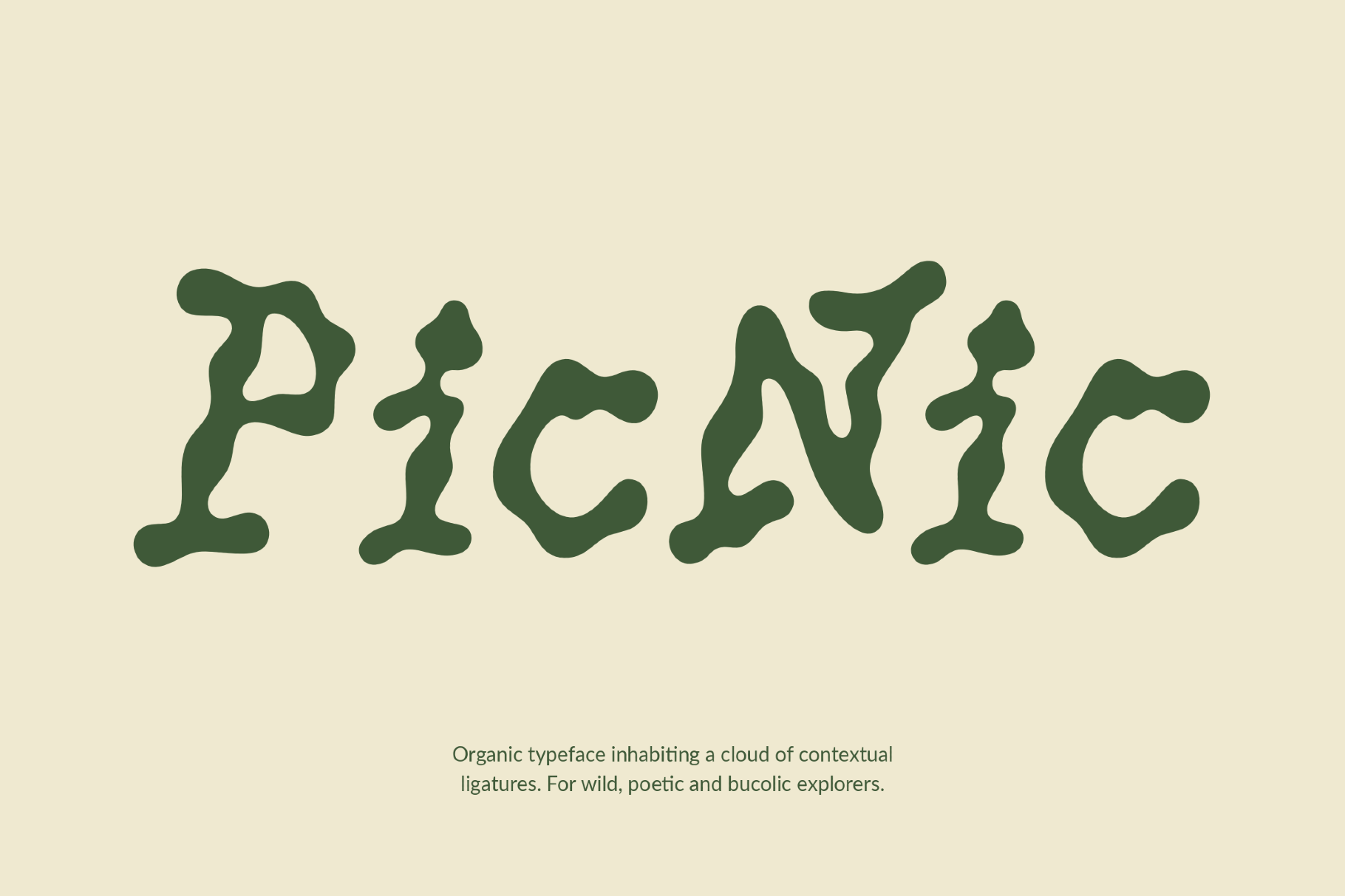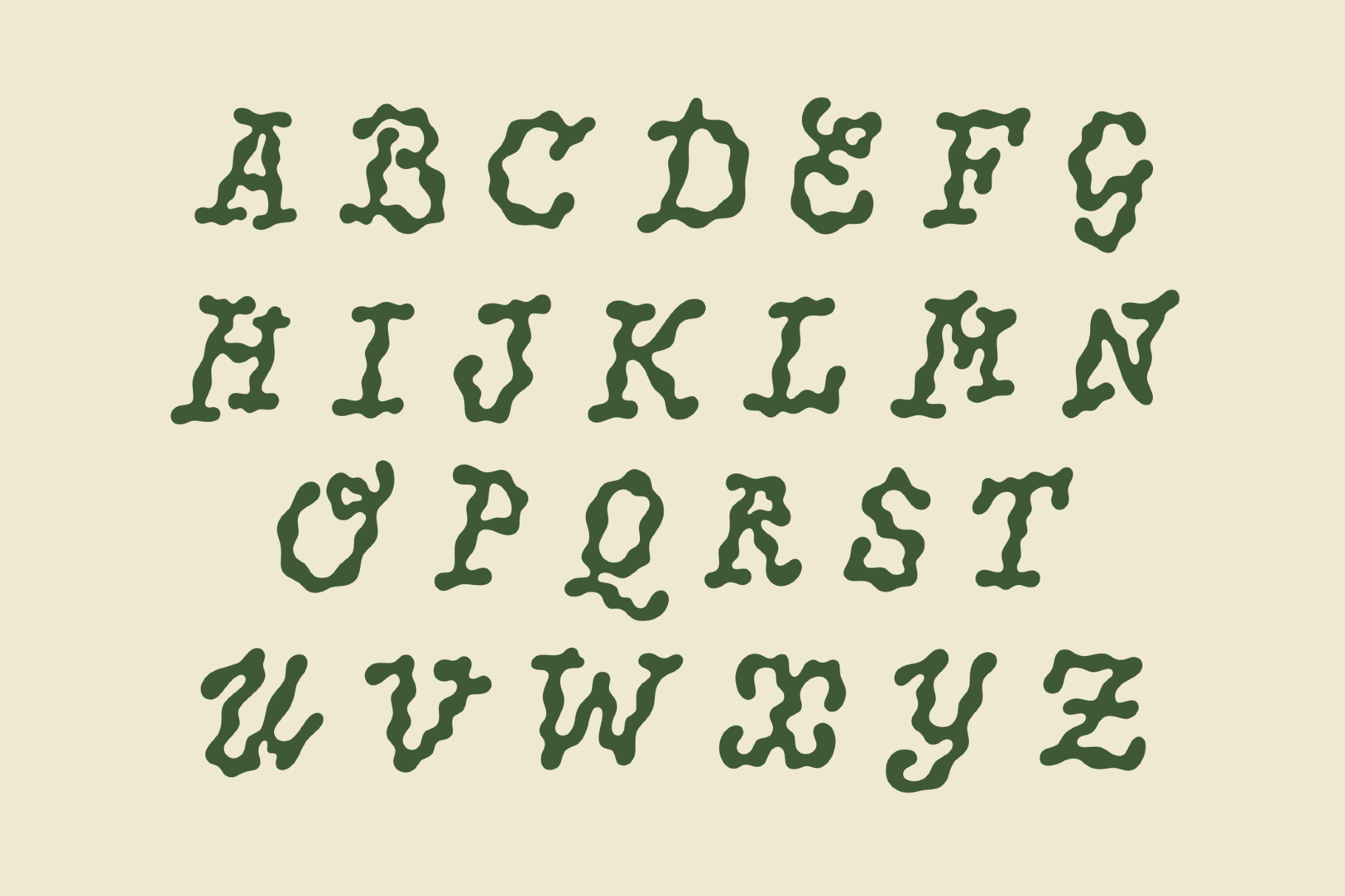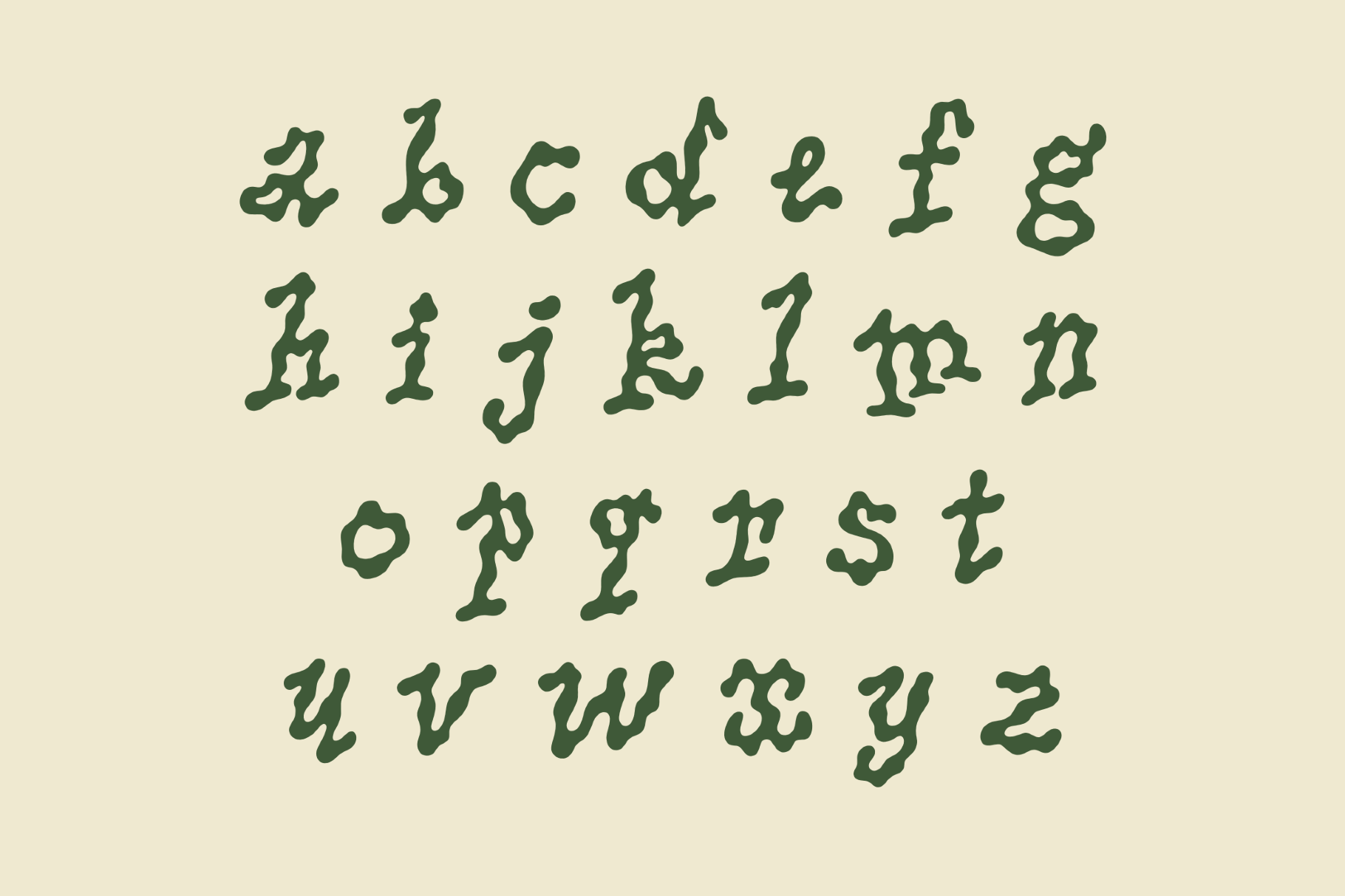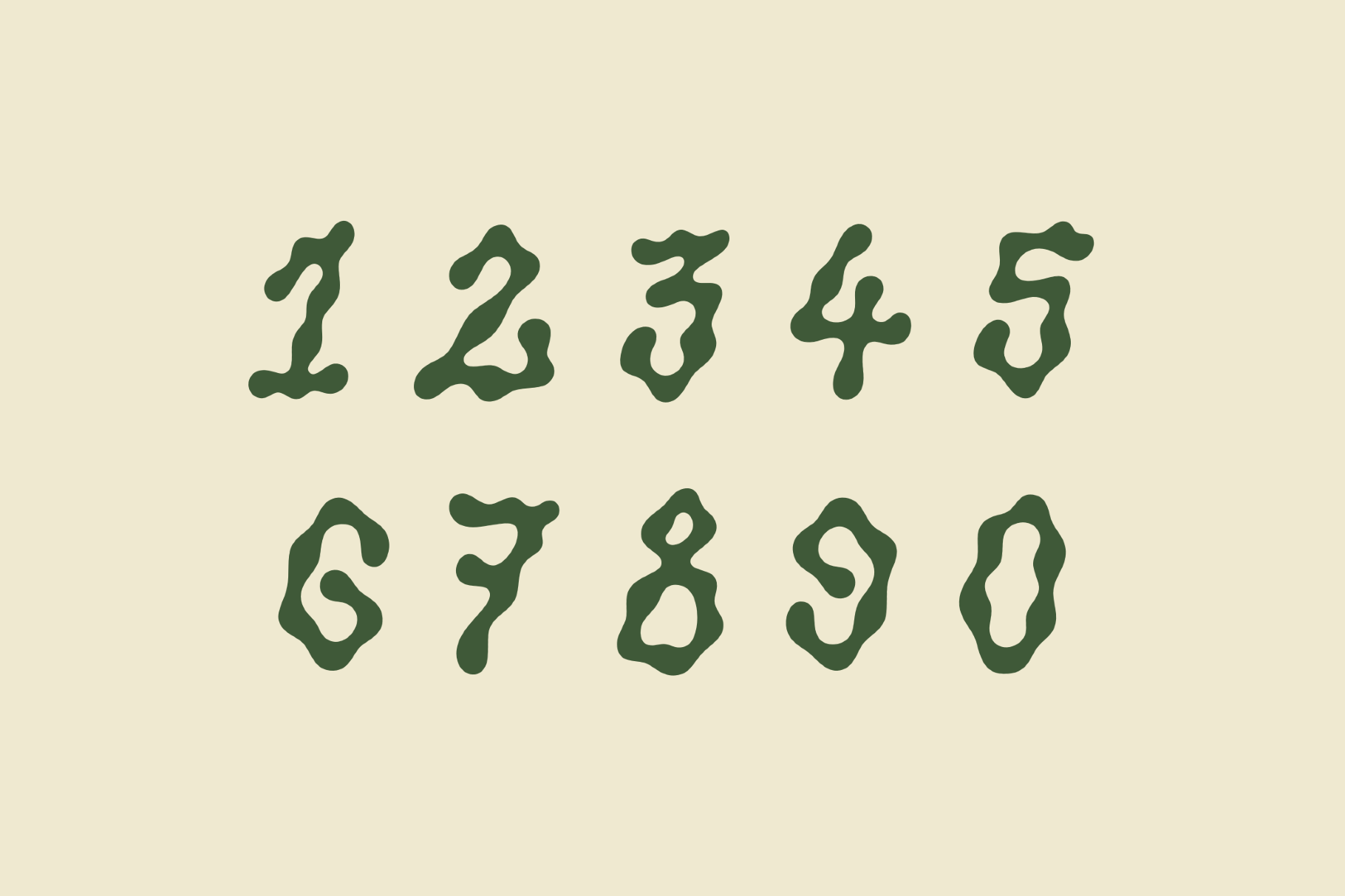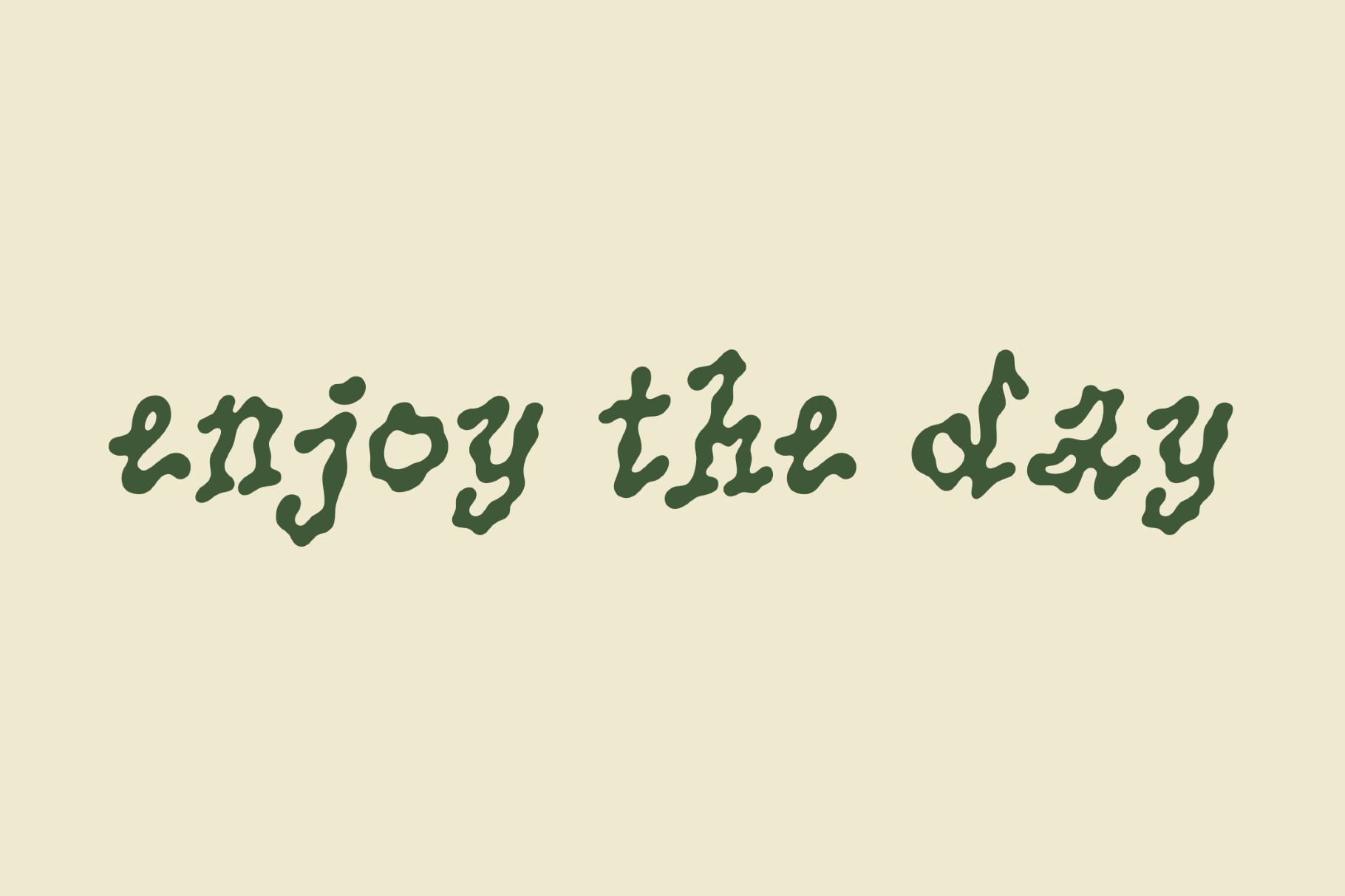
Picnic - Freaky Funny Font
Picnic is a wavy display serif with the molten oddity of 1960s psychedelic posters and underground comix. Its blobby terminals give each letter the loose sway of hand-cut counterculture lettering. This font works beautifully for poster headlines, album covers, festival graphics, editorial titles, sticker designs, packaging and branding.